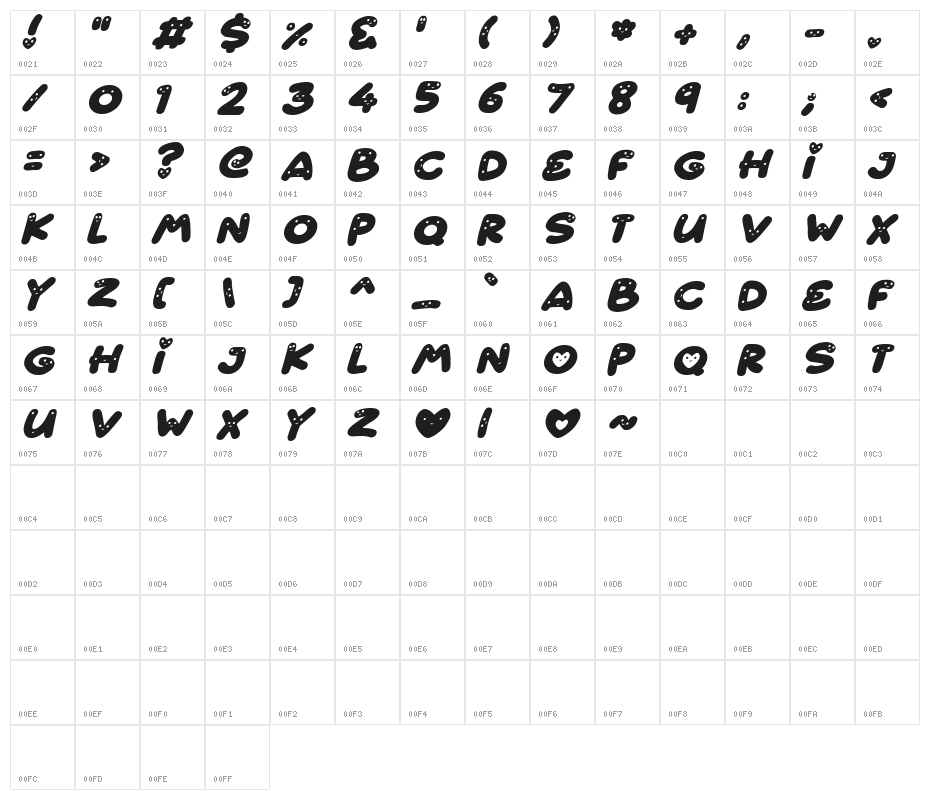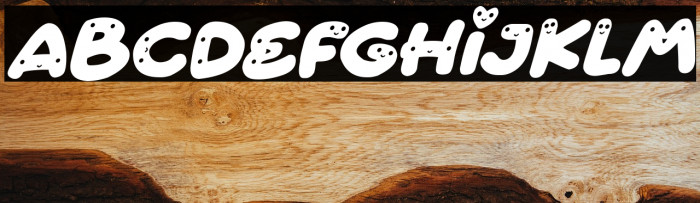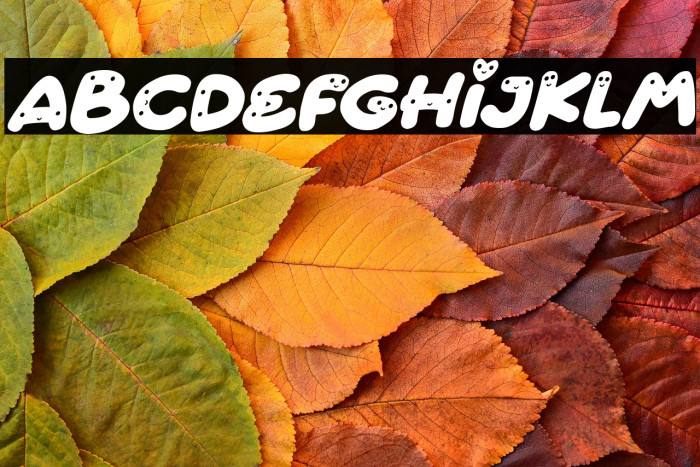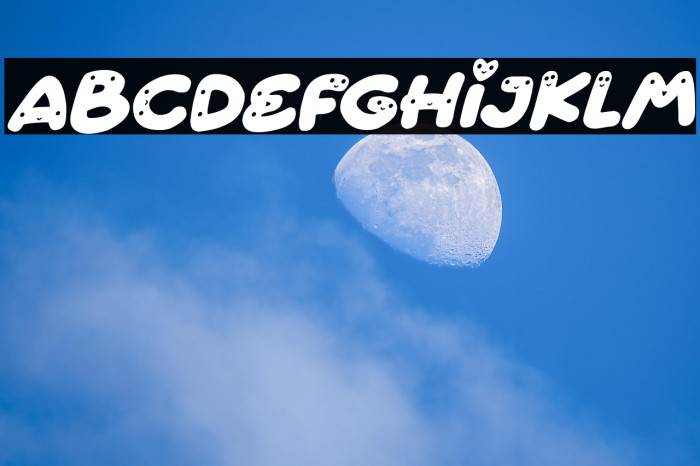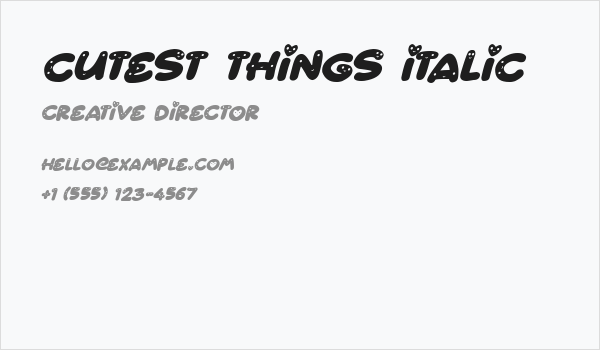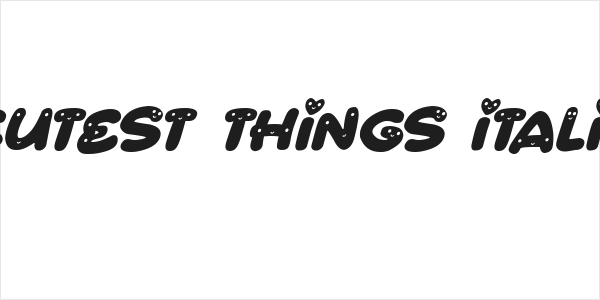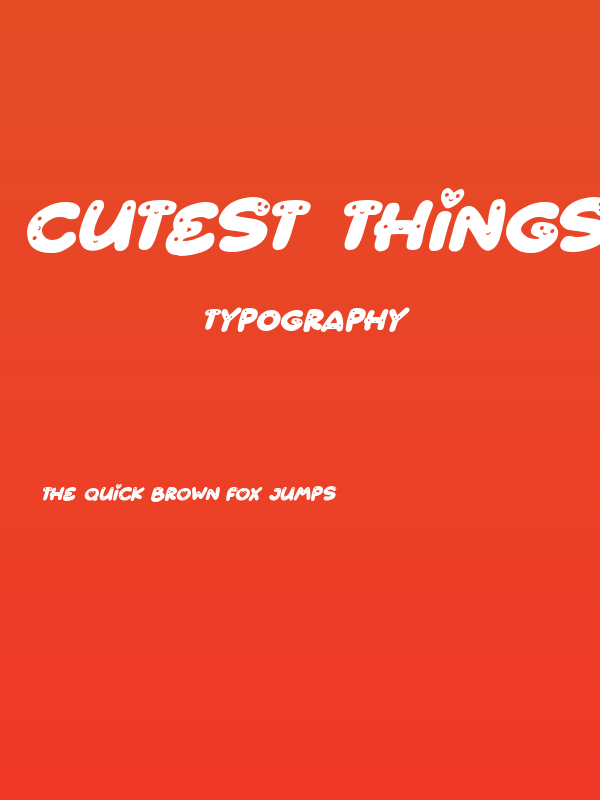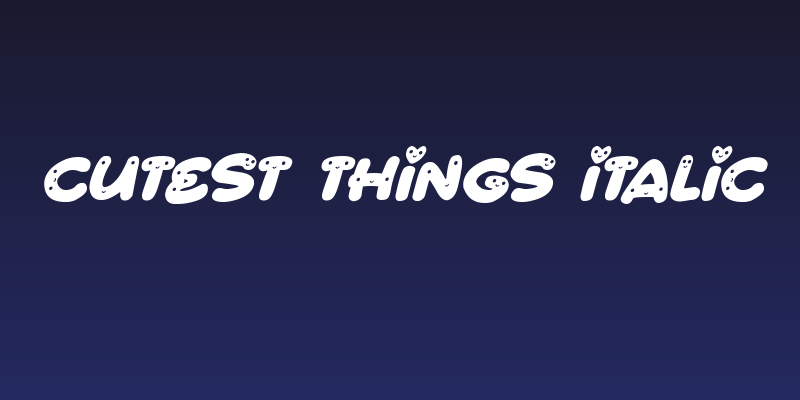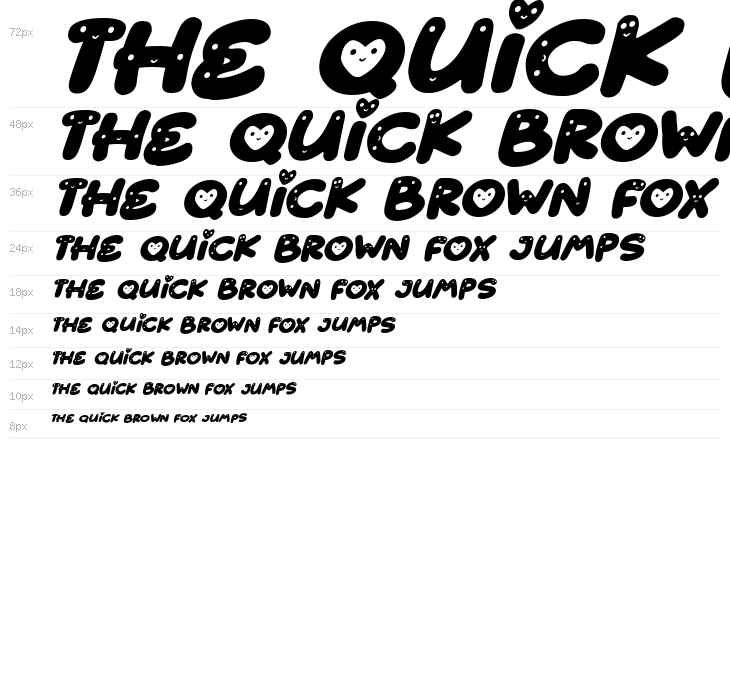
Cutest Things Italic Font
Cutest Things Italic Description
This playful and whimsical font features bold, rounded characters with charming decorative elements such as hearts and dots integrated into the design. The letters have a smooth, flowing appearance, giving them a friendly and approachable feel. The font maintains a consistent weight throughout, with a slight slant that adds a touch of dynamism and movement. Its unique style makes it stand out, perfect for projects that require a fun and lighthearted touch. The characters are well-spaced, ensuring readability while maintaining the decorative flair.
| Use Case | Headlines, Logos, Decorative text |
| Proposed Projects | Ideal for children's books, greeting cards, playful branding, and party invitations. |